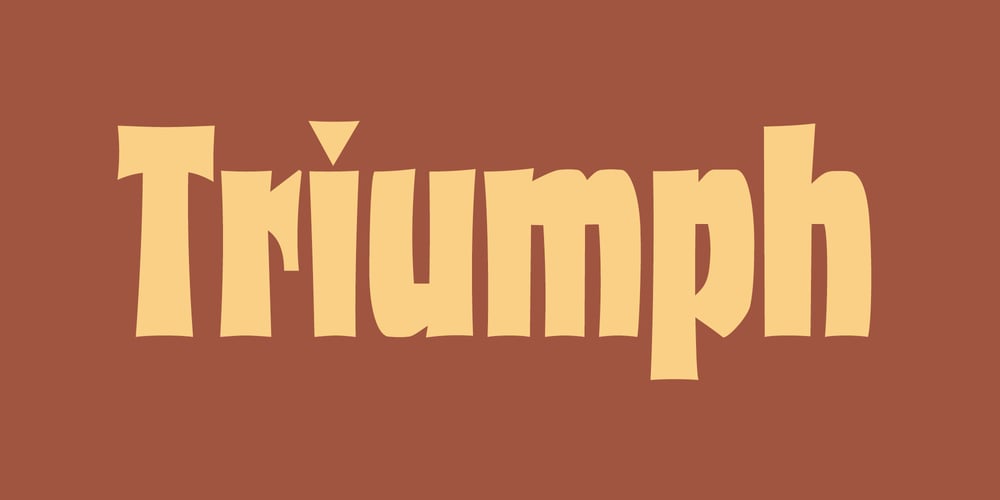
FDI Triumph Font Family was designed by Ralf Herrmann and published by FDI. FDI Triumph contains 1 styles and family package options. FDI Triumph revives Albert Auspurg’s “Triumph” typeface originally released in 1929 by the type foundry Ludwig Wagner in Leipzig. The forgotten design was carefully digitized from the original wood type font and extended to cover the Western codepages Win 1252 and Mac Roman.